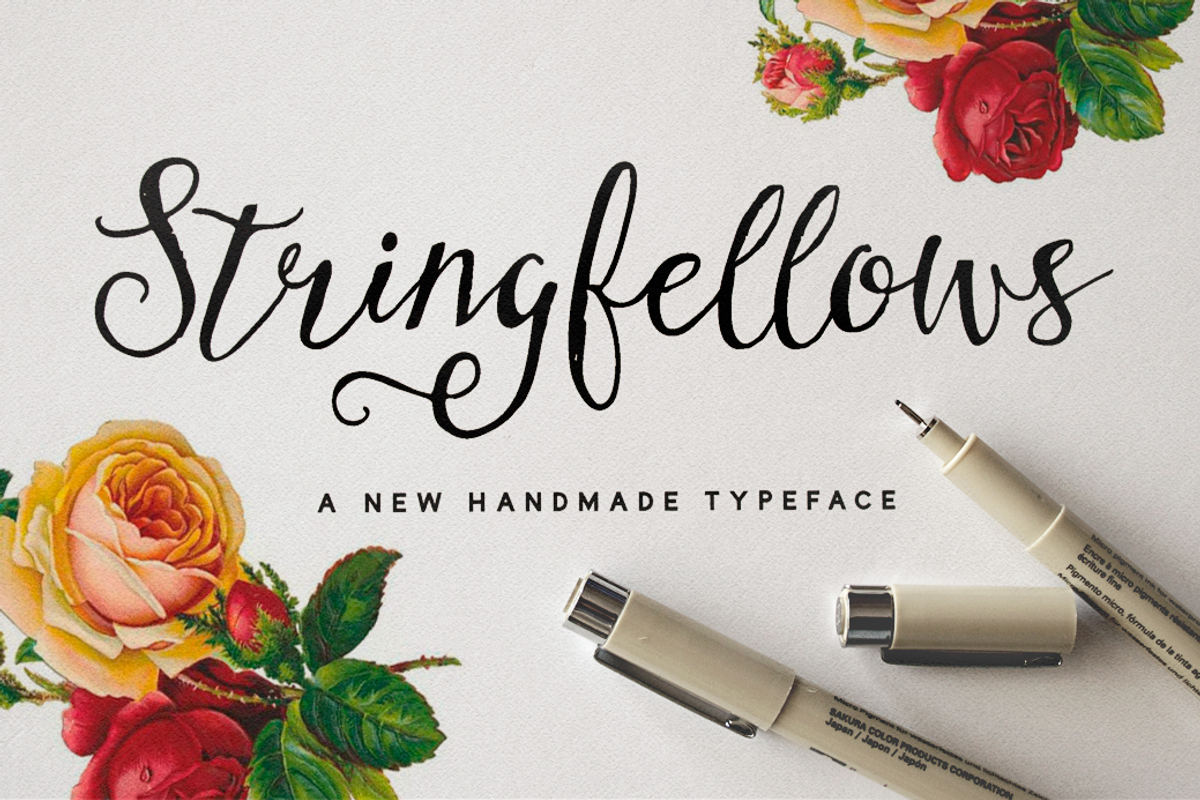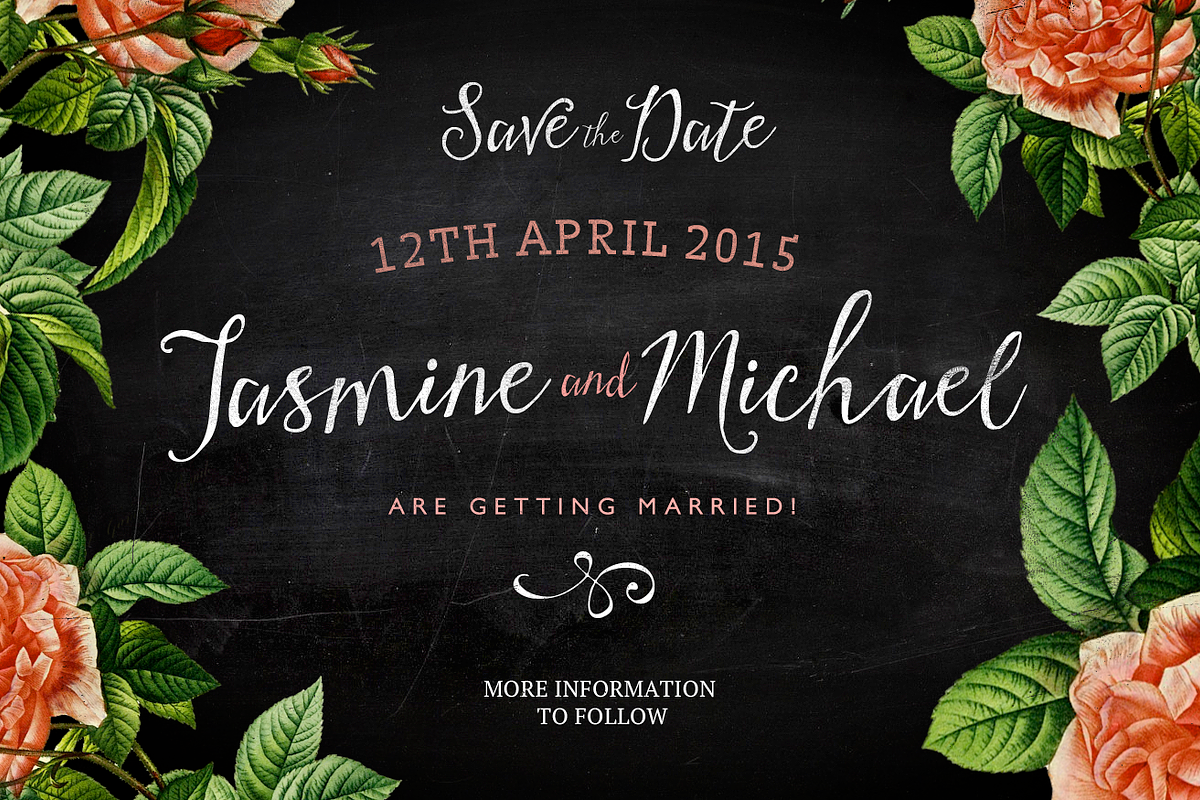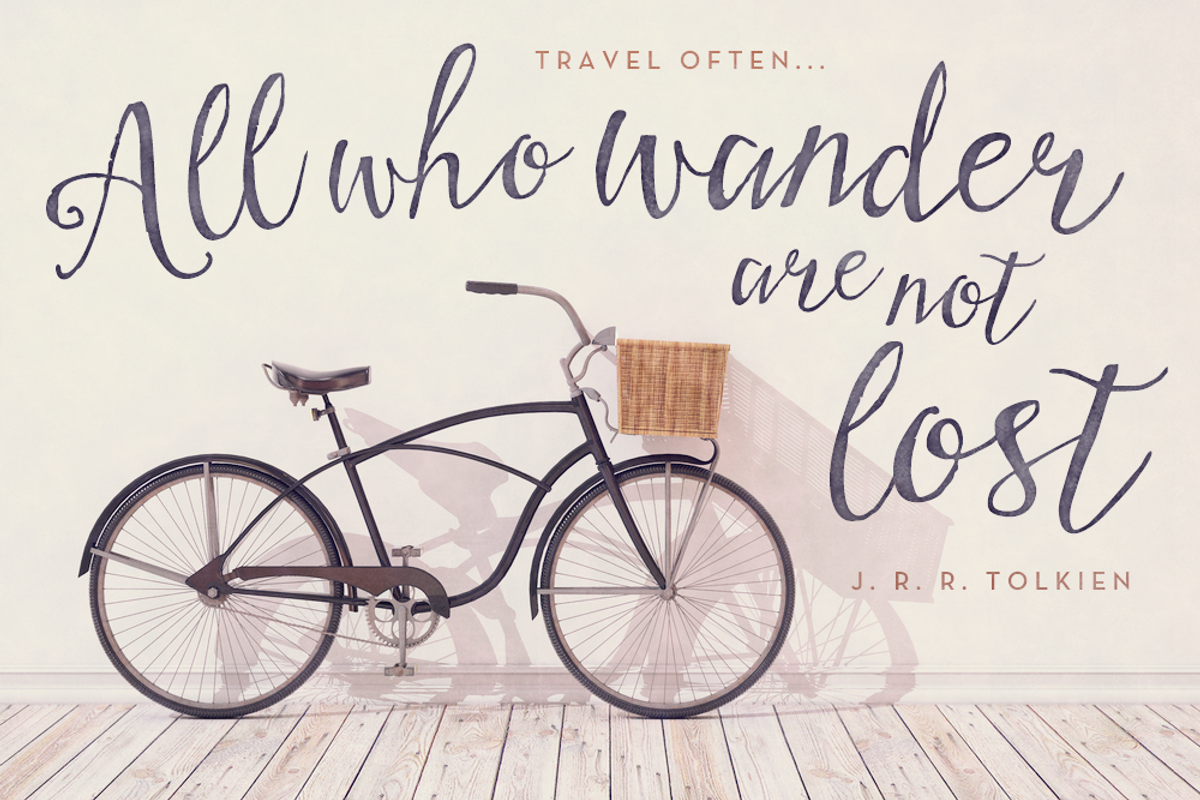
Stringfellows Typeface
I'm just completely in love with all hand-lettered artwork at the moment...I could stare at all of it for hours on end...particularly typographical quote posters...and wedding invites....and custom address stamps ...I couldn't take it any longer and just had to make something reflective of all of the beautiful custom hand lettered creations out there...so I whipped out my pens :)
Every stroke is made with love and attention...the same love and attention any doting illustrator gives to any unique art piece....The idea is to give you something you can use quickly, to make it look like you toiled over your custom type artwork for hours :) I hope it helps you as much as its intended to!